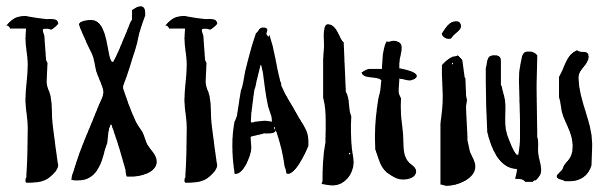
TXT Altius
Add a unique, stylish touch to your creative lettering. Download this TrueType font to add interest to scrapbook journaling and greeting card captions.
TXTAltius Font